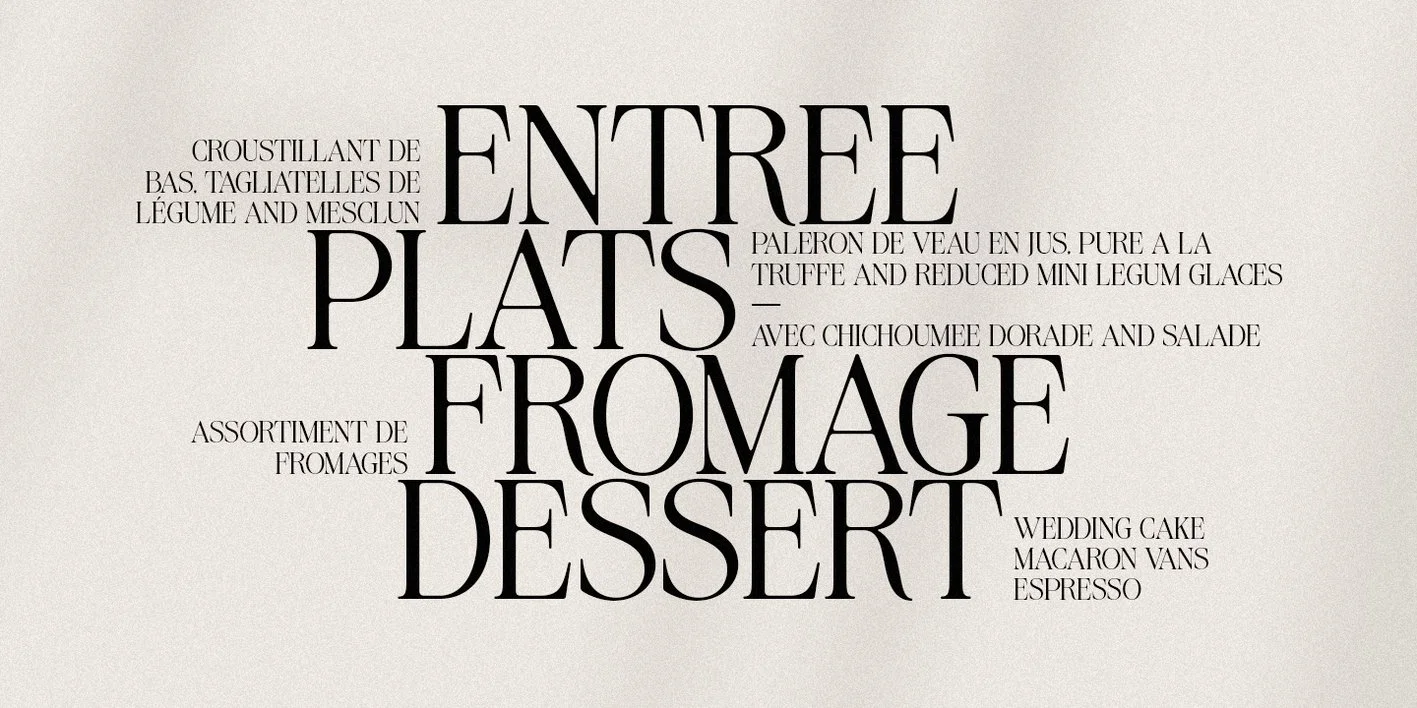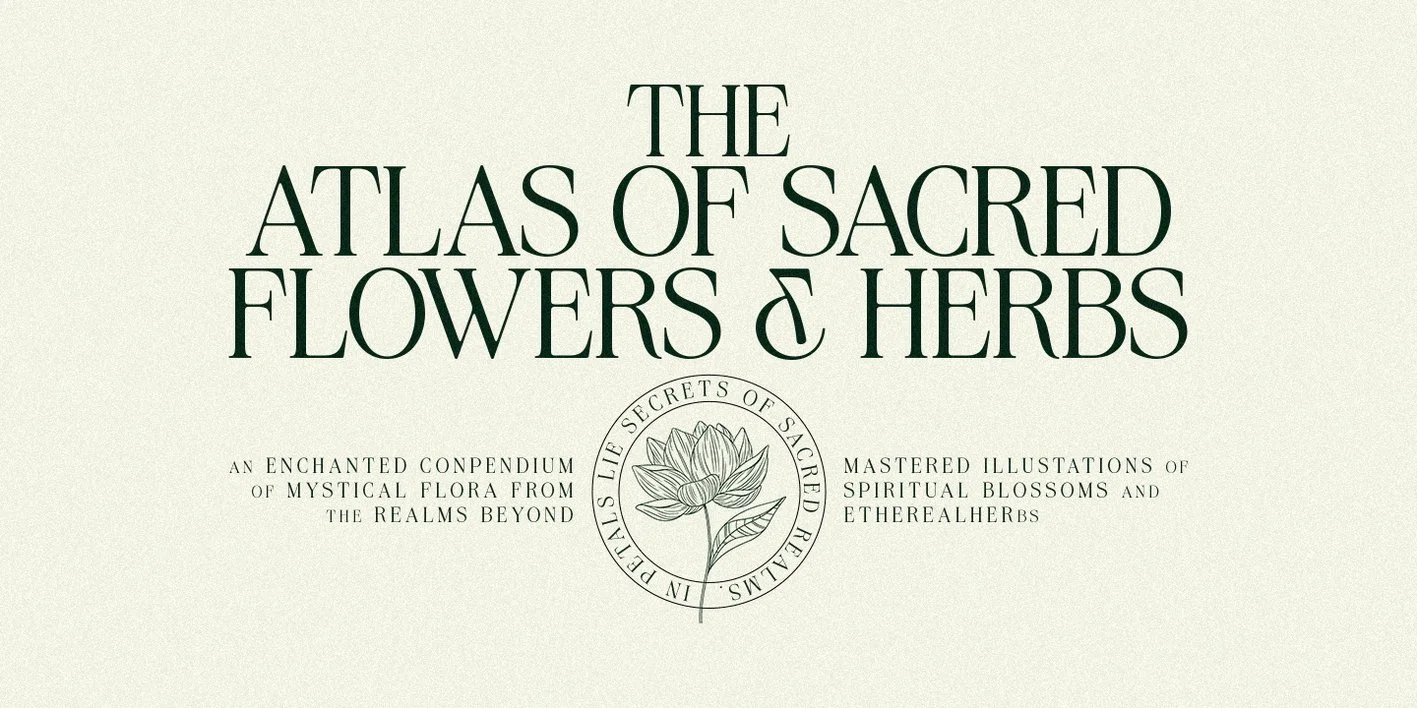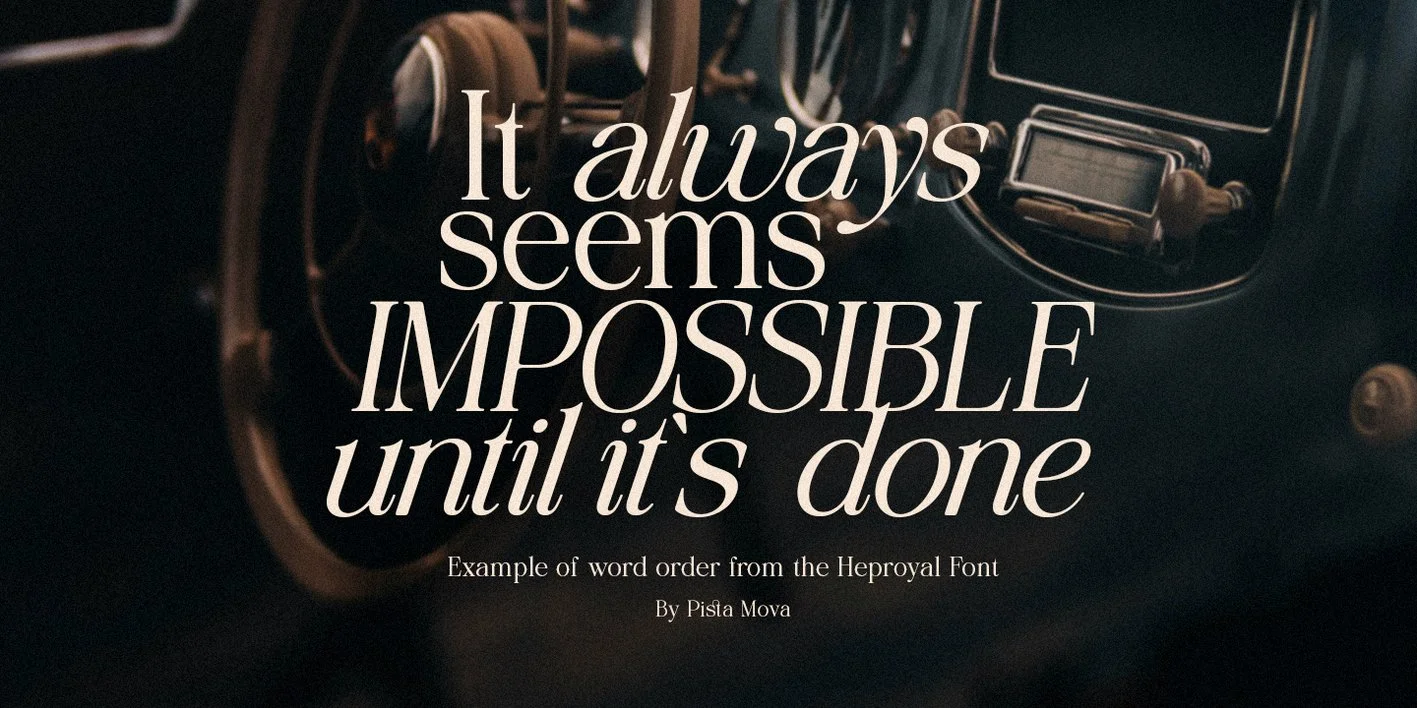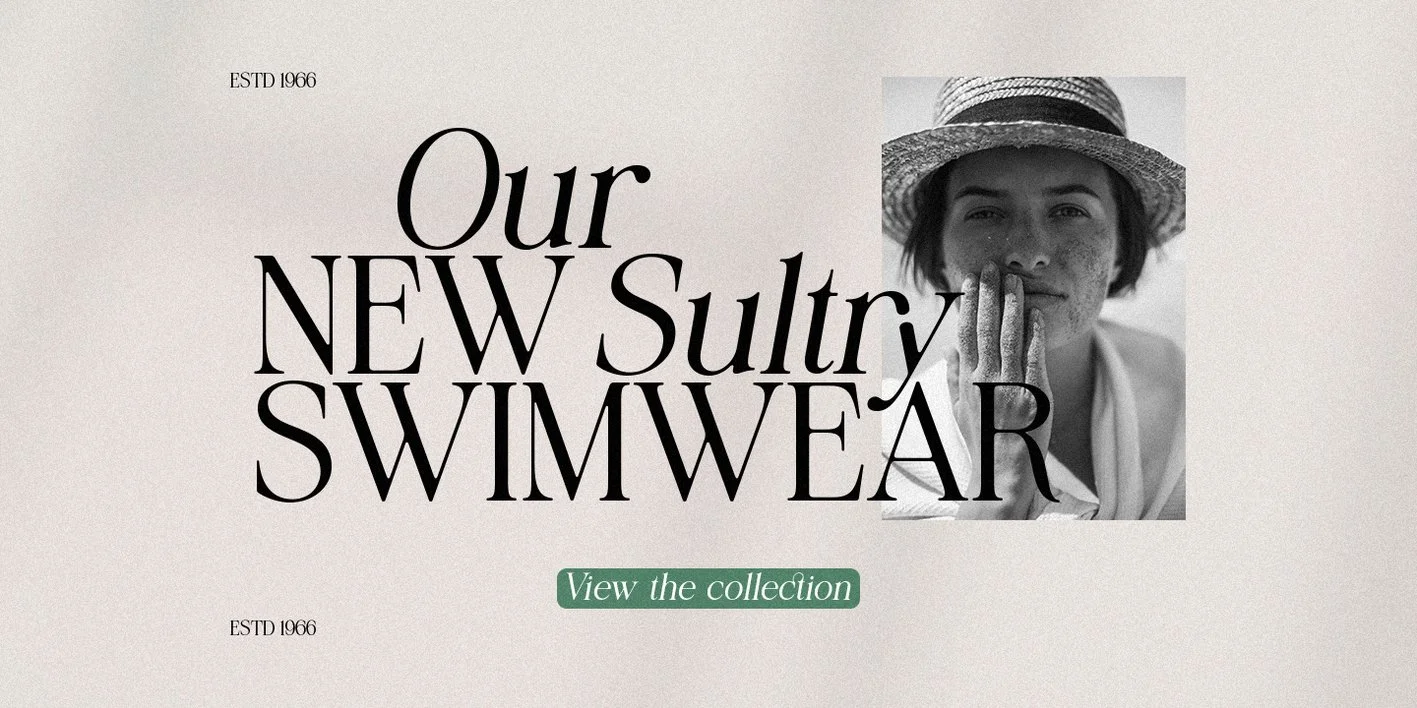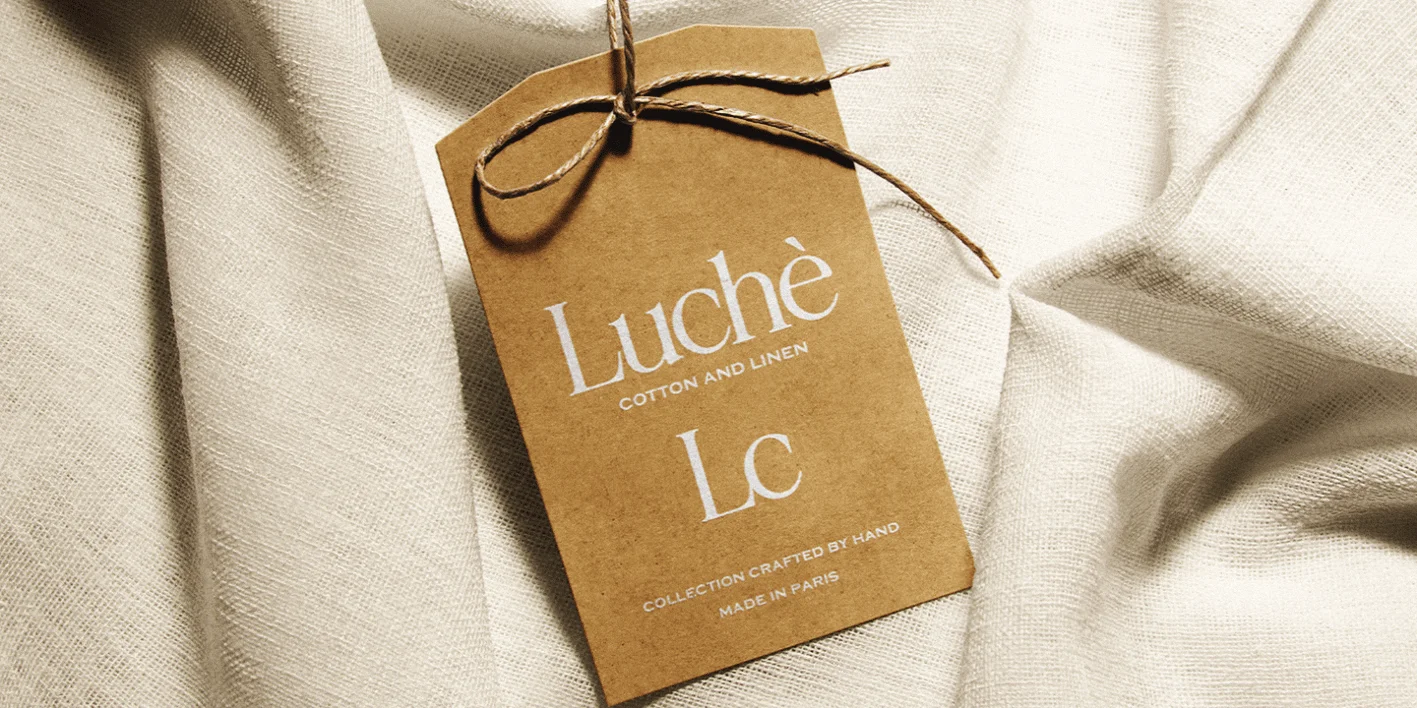
Heproyal Font
Few typefaces manage to balance controlled contrast that rewards close inspection with genuine day-to-day practicality. Heproyal is one of them. The typeface brings a versatile sensibility to a broad range of creative disciplines, with consistent type colour across continuous text that holds up whether the work is print-first or screen-first.
In practice, Heproyal proves particularly effective for logo design, signage systems, web design, brand identity systems, poster creation. Designers reaching for it find that the type decisions feel resolved rather than laboured — a useful quality when client timelines are tight.
The proportions balance x-height, cap height, and ascender length to produce a face that reads confidently at body copy sizes without losing presence at display scale. Sidebearings were derived from visual rhythm testing rather than mathematical calculation alone.
The range of applications extends to environmental graphics, product labels, packaging design, social media graphics. That breadth is deliberate: the proportions and spacing were stress-tested across a wide range of mock briefs before the typeface was finalised.
Graphic designers working on identity systems find Heproyal a reliable choice for projects that demand both personality and restraint. The design avoids the self-conscious quirkiness that dates quickly, settling instead for considered distinctiveness that holds up over time.